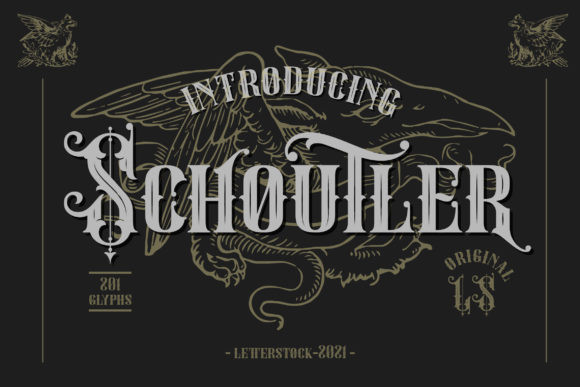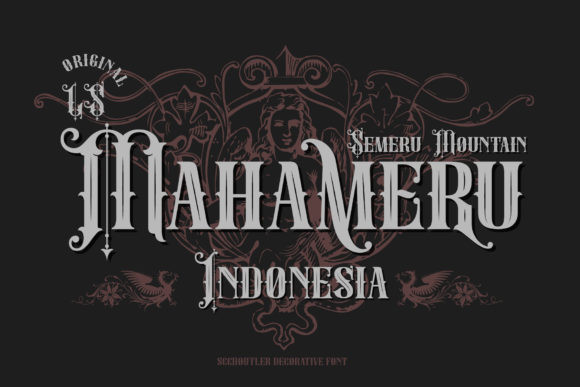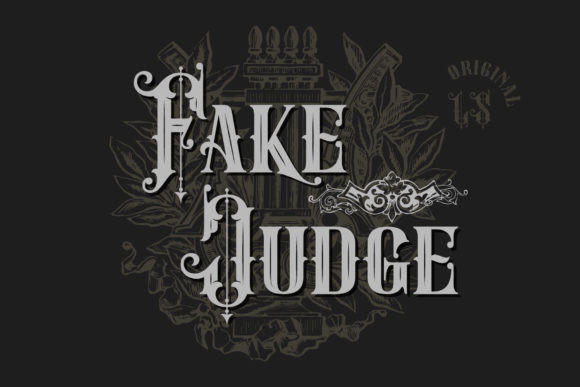
Schoutler Font
Schoutler is a bold and assertive blackletter font. No matter the topic, this font will be an incredibly asset to your fonts’ library, as it has the potential to elevate any creation.